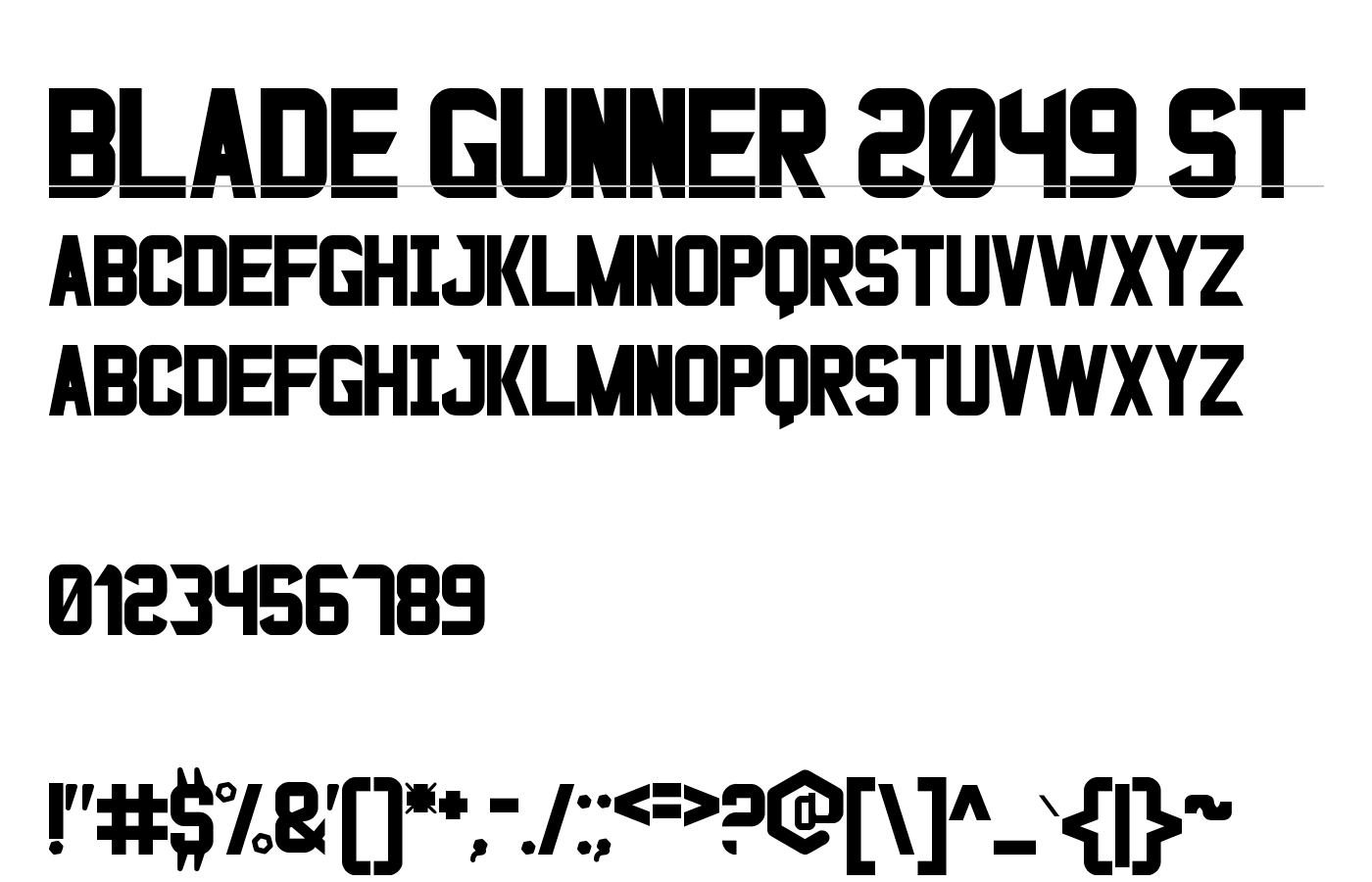
Blade Gunner 2049 St is a bold, condensed sans serif font with a futuristic, industrial feel. Its sharp-edged, geometric letterforms and uniform stroke weight give it a strong, modern presence perfect for high-impact headlines, tech branding, and sci-fi inspired designs. This typeface works best where a tough, edgy, and forward-looking style is desired.
Blade Gunner 2049 St Font
About Blade Gunner 2049 St Font
| Font family | Blade Gunner 2049 St Font |
| Designer | This font is an original work of southype dot com |